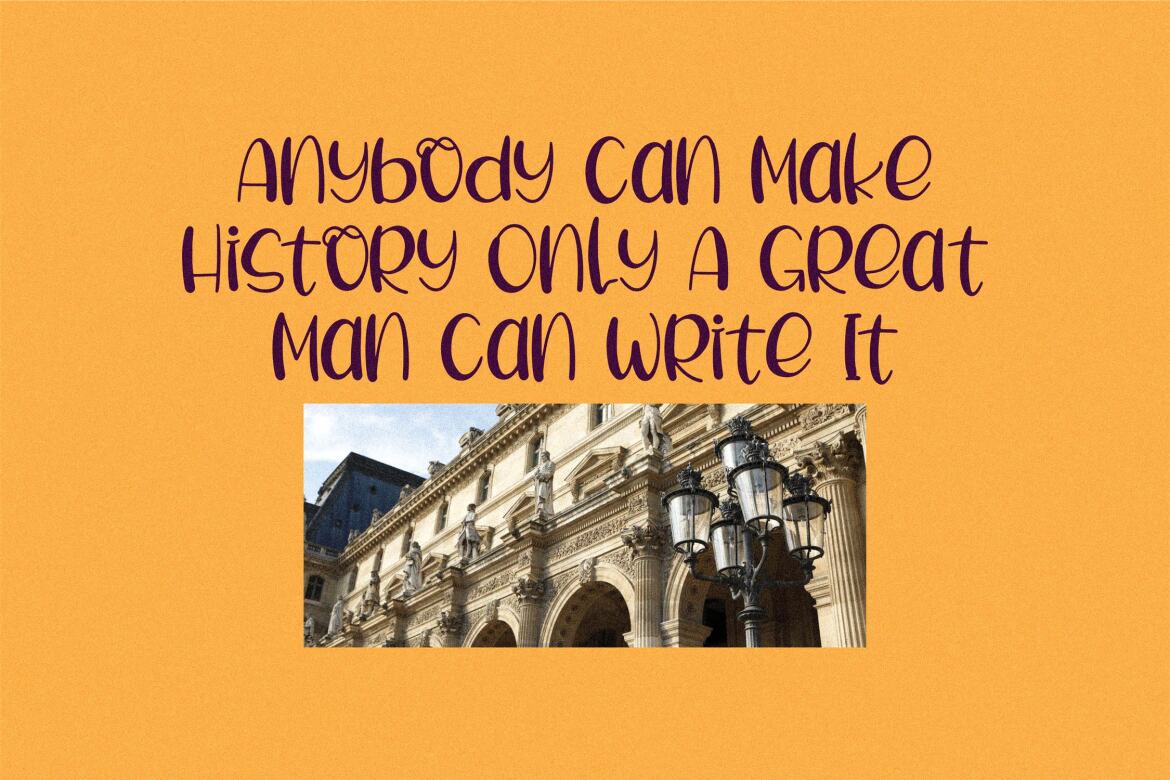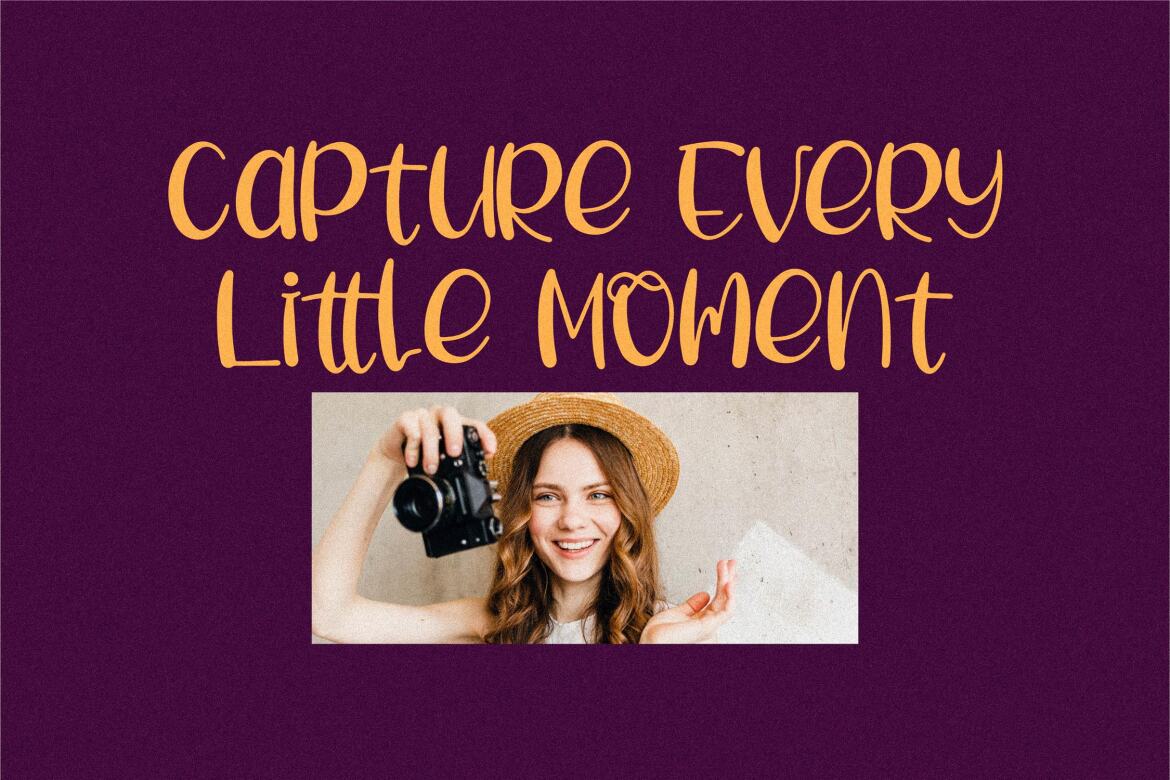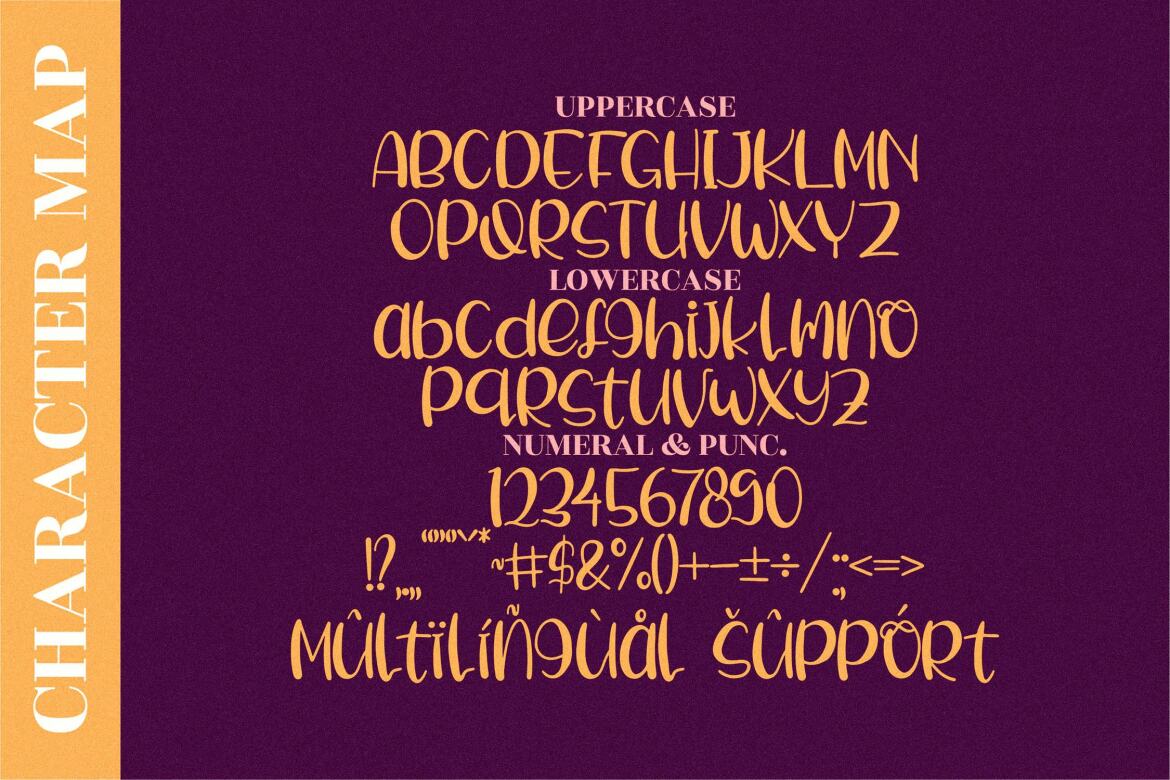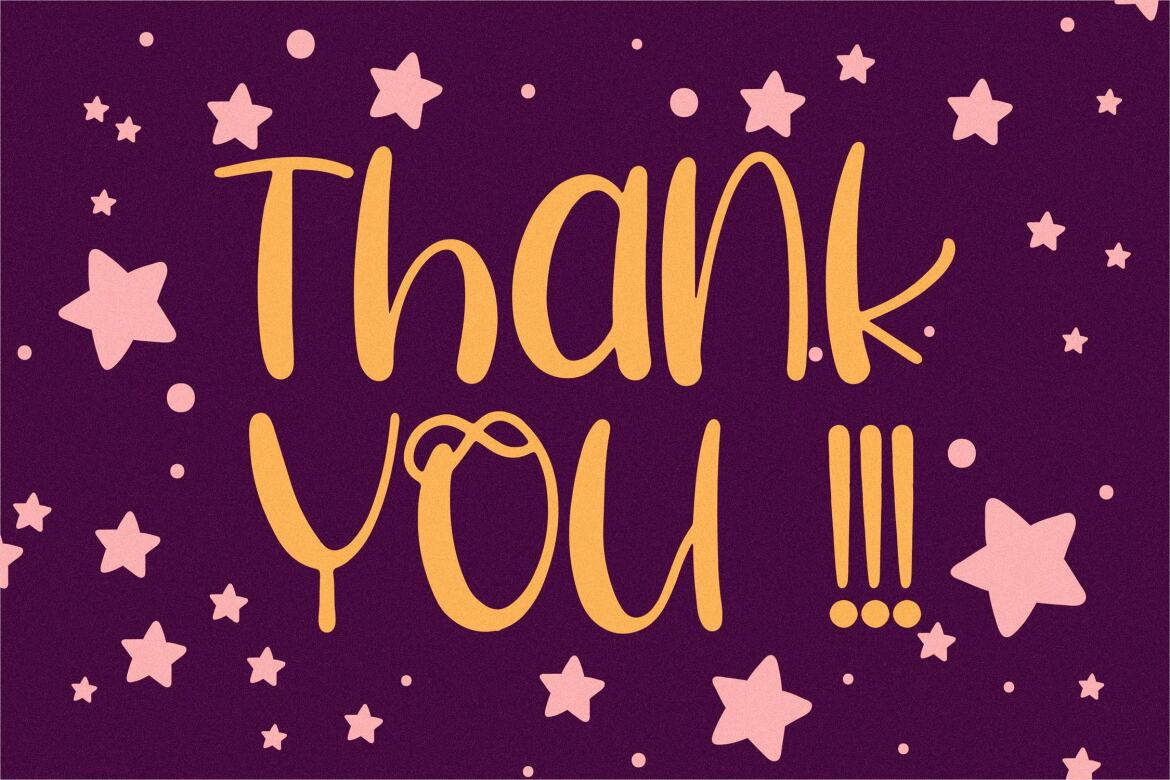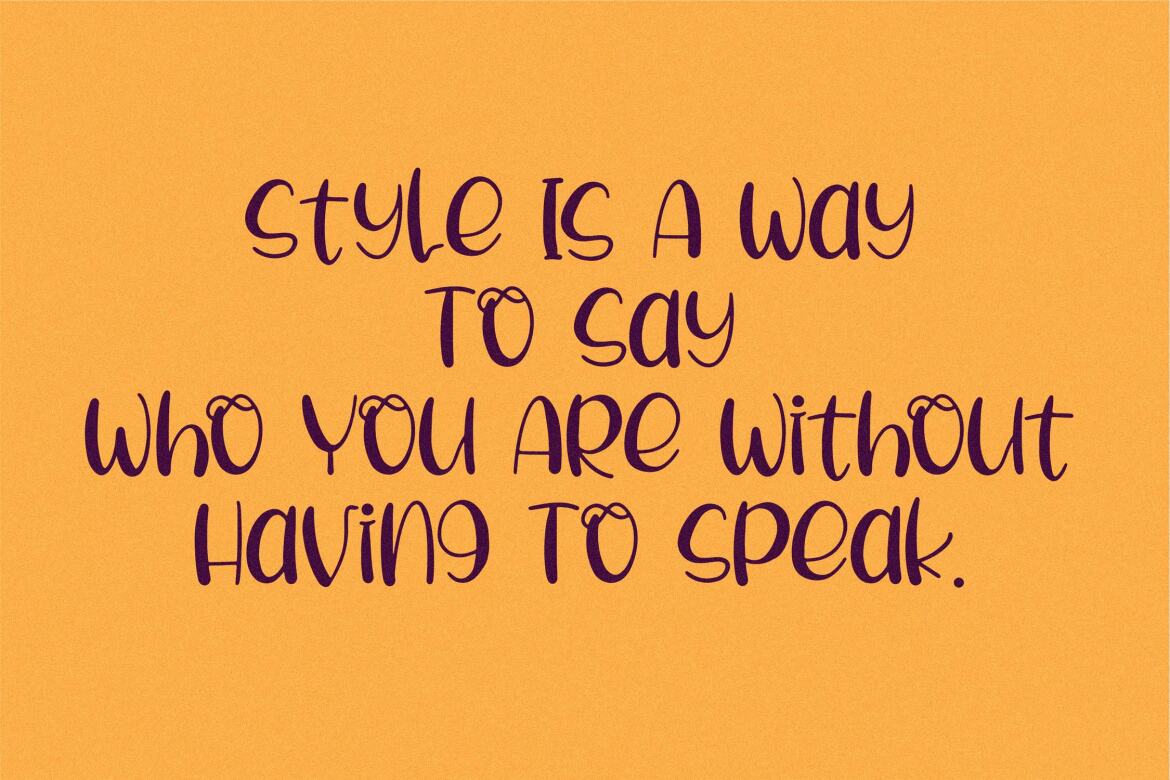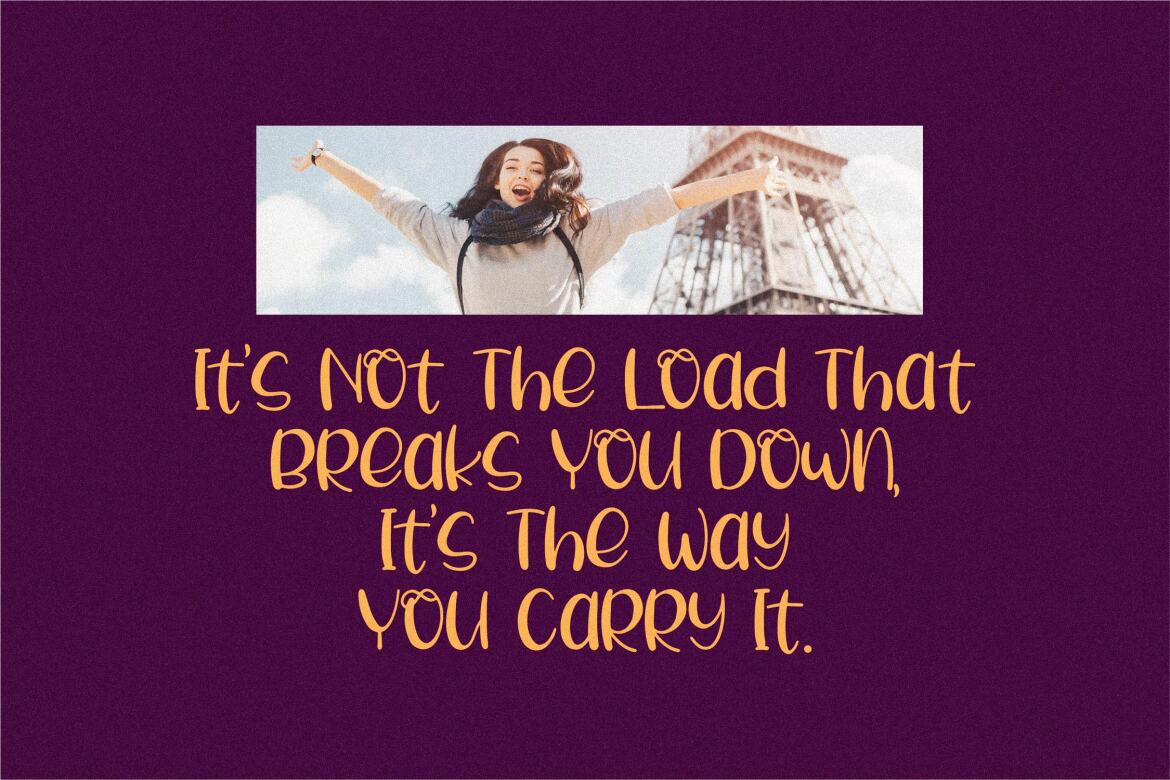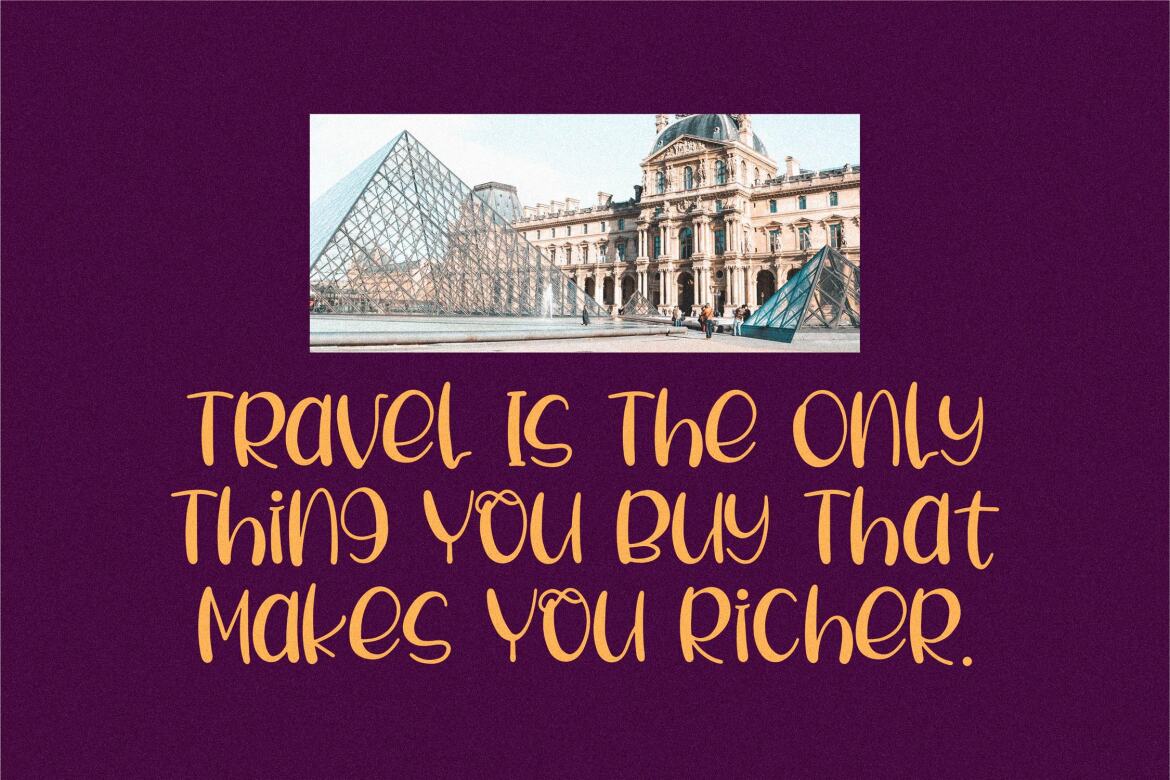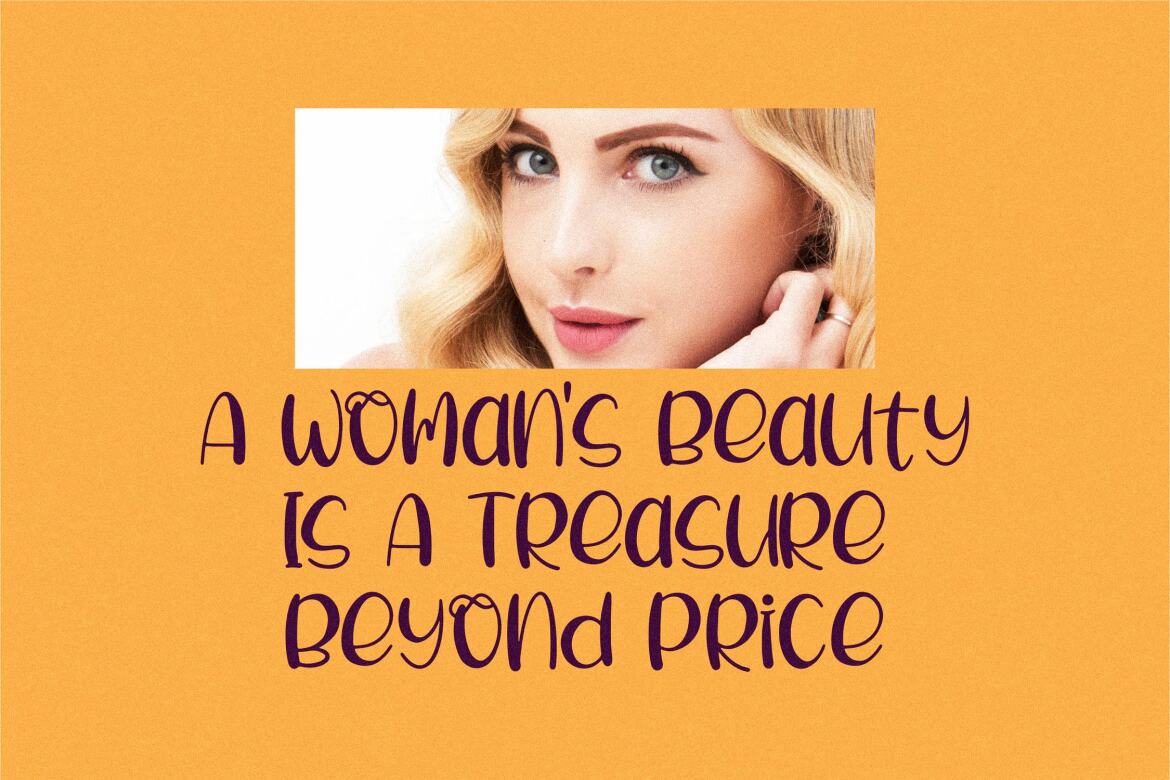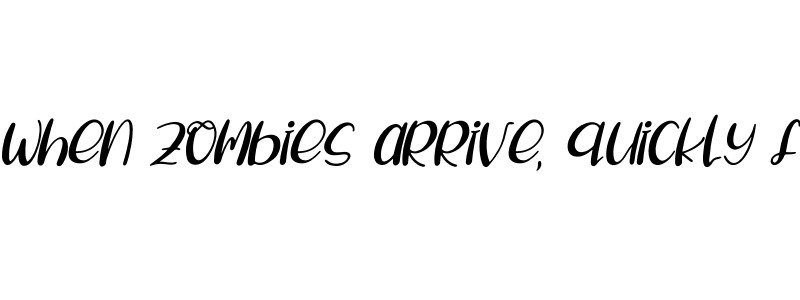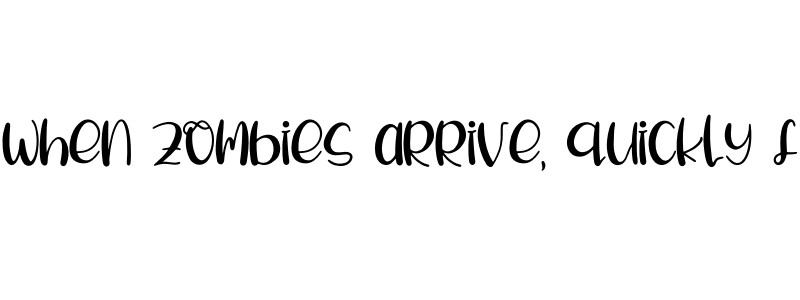
Twinkle Spark - FREE Quirky Font
Twinkle Spark - Quirky Handwritten Font, from Perspectype Studio, is a quirky handwritten font, suitable for any projects such as: logos, branding projects, homeware designs, product packaging, mugs, quotes, posters, shopping bags, t-shirts, book covers, name card, invitation cards, greeting cards, label, photography, watermark, special events, and all your other lovely projects that need a beautiful quirky taste.